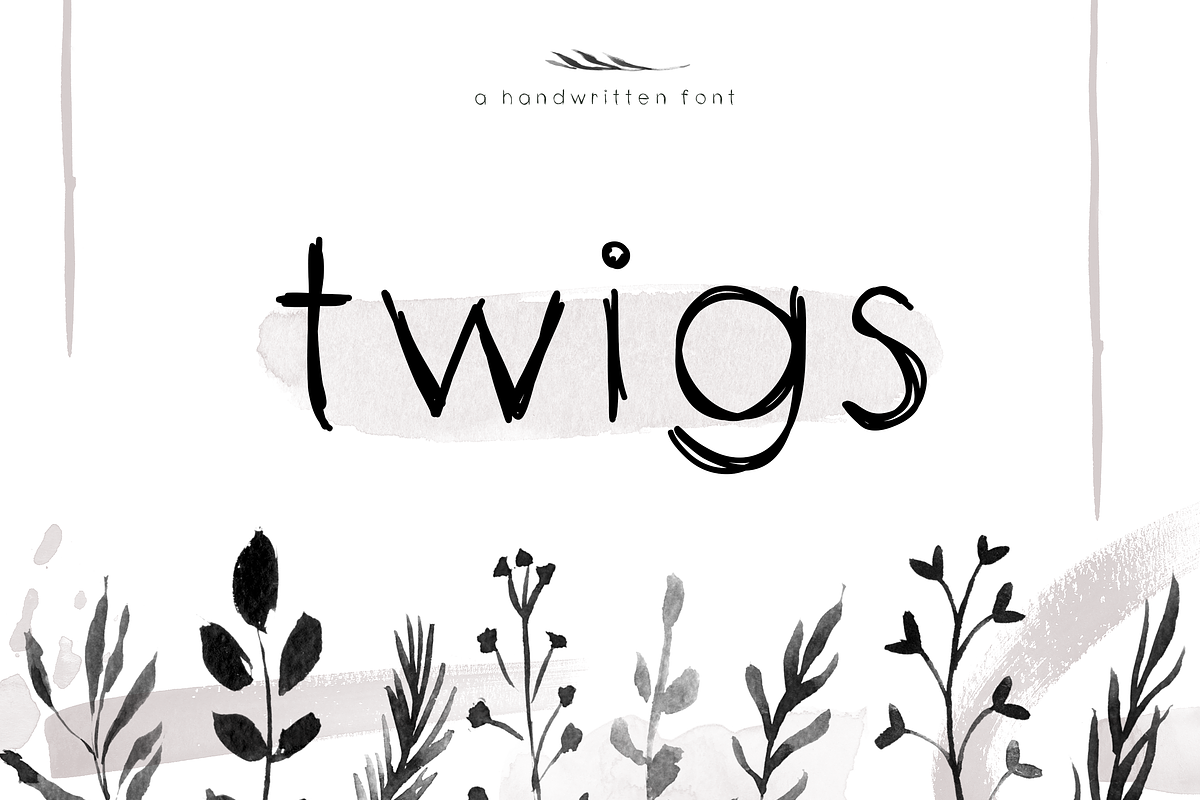
Twigs - A Handwritten Scribble Font Free Download
Twigs - A Handwritten Scribble Font Free Download is a playful, artistic typeface that mimics the look of handwritten scribbles. Its quirky, organic lines bring an authentic and creative feel to any design, making it perfect for casual projects, DIY invitations, social media graphics, greeting cards, and more.
With its imperfect, hand-drawn appearance, Twigs adds personality and charm to your typography, ideal for designs that need a spontaneous, fun vibe. Whether you're crafting a project with a personal touch or adding a creative flair to your branding, this font gives your text a unique, lively feel.
Inject some creative energy into your designs with Twigs - A Handwritten Scribble Font Free Download, and give your typography a playful, handcrafted style. Perfect for those who love quirky, expressive fonts.